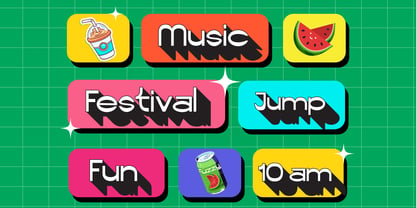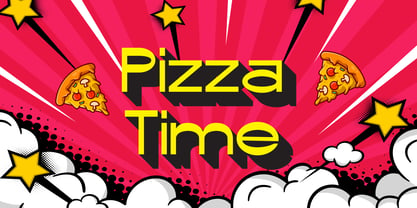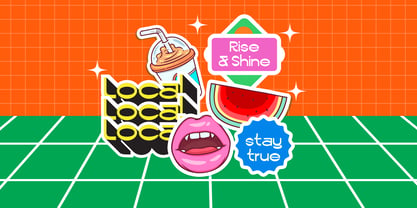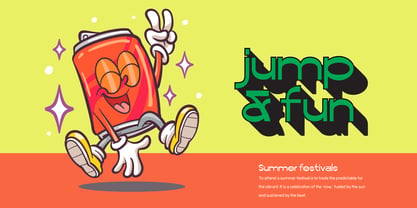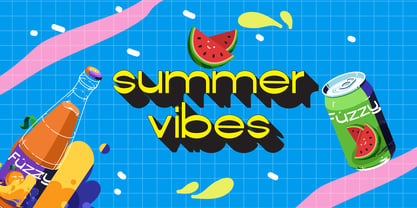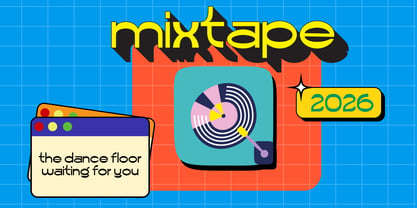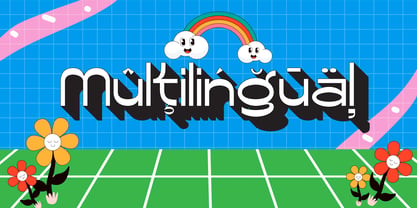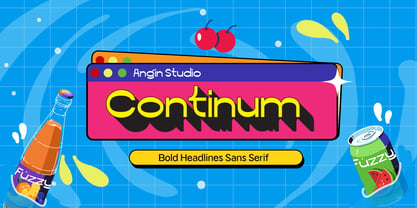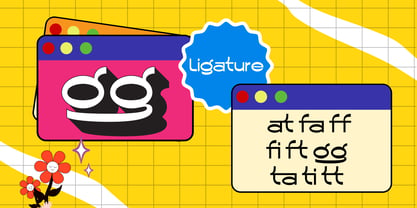
Continum
by Angin Studio
The Continum Font Family was designed by Ahmad Aswin, David Novrian and published by Angin Studio. Continum contains 1 styles. More about this family
Turn up the heat on your designs with Continum, a bold, high impact display sans serif built for sun drenched projects and striking visuals. Packed with personality and confident vibe, this font captures the essence of endless summer days.
Continum has a unique anatomy, We’ve twisted the rules of traditional sans serifs to introduce custom letterforms, unexpected curves, and distinct geometric quirks that guarantee your text stands out.
Continum also have a ligature feature to not only enhanced the legibility and readibility of the letters but also enhance the visual appearance.
Not only that, Continum has a multilingual support for 90 language.
Designers: Ahmad Aswin, David Novrian
Foundry: Angin Studio